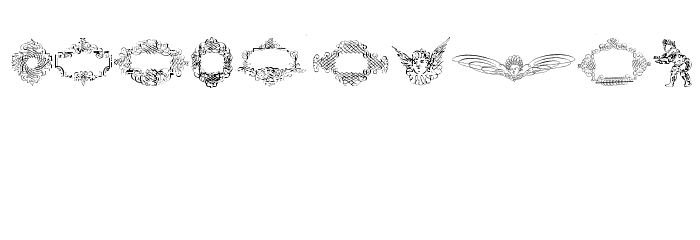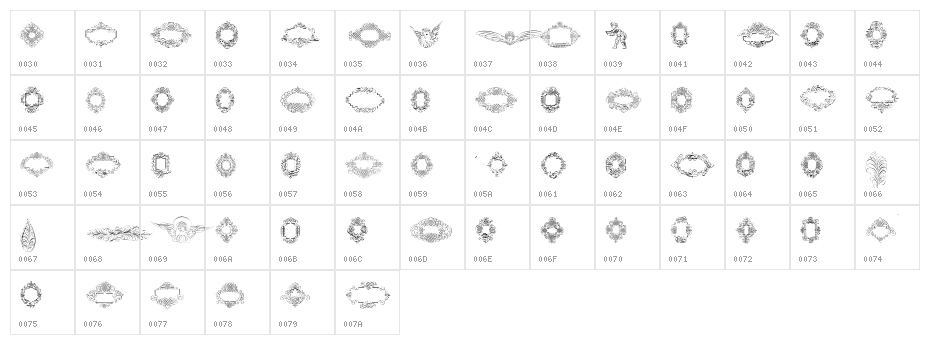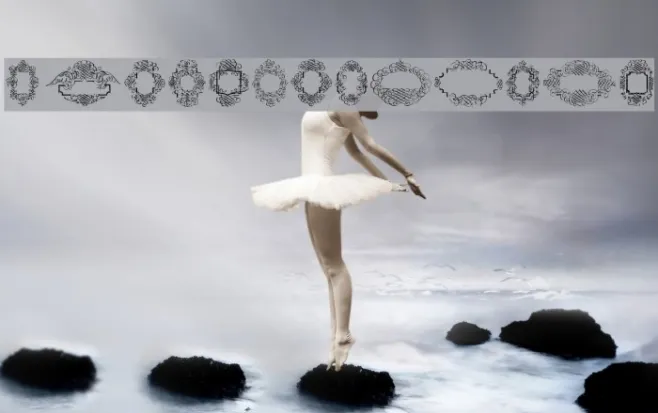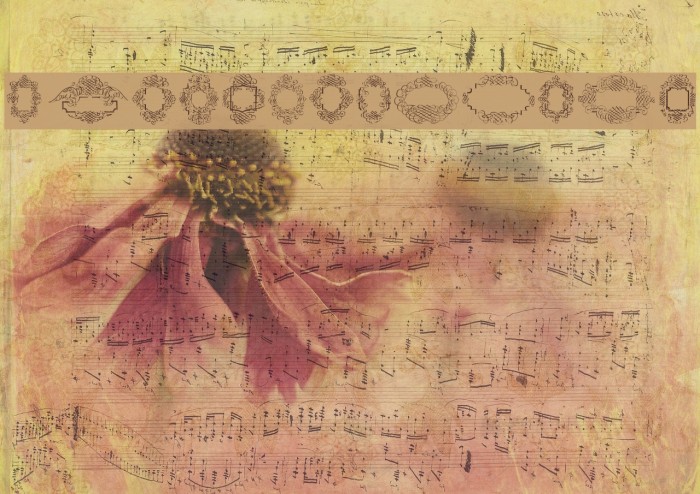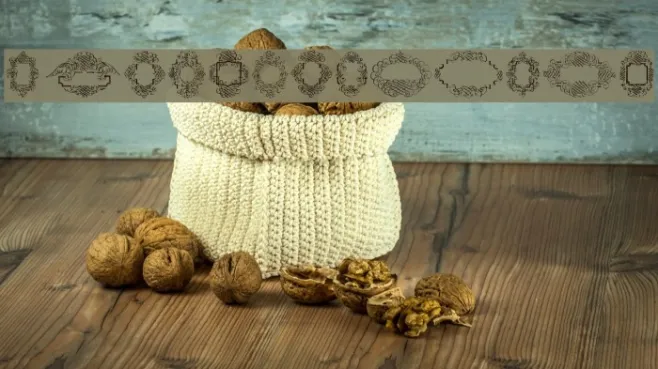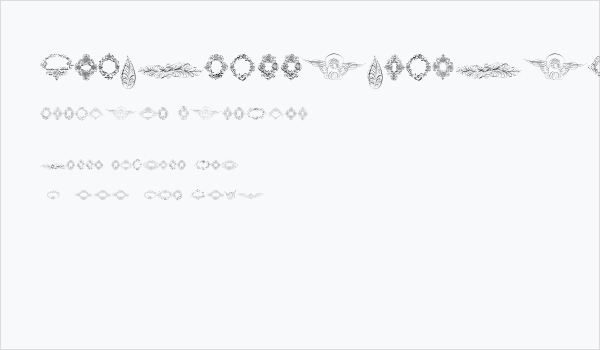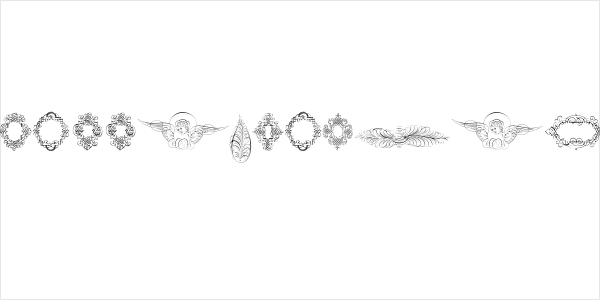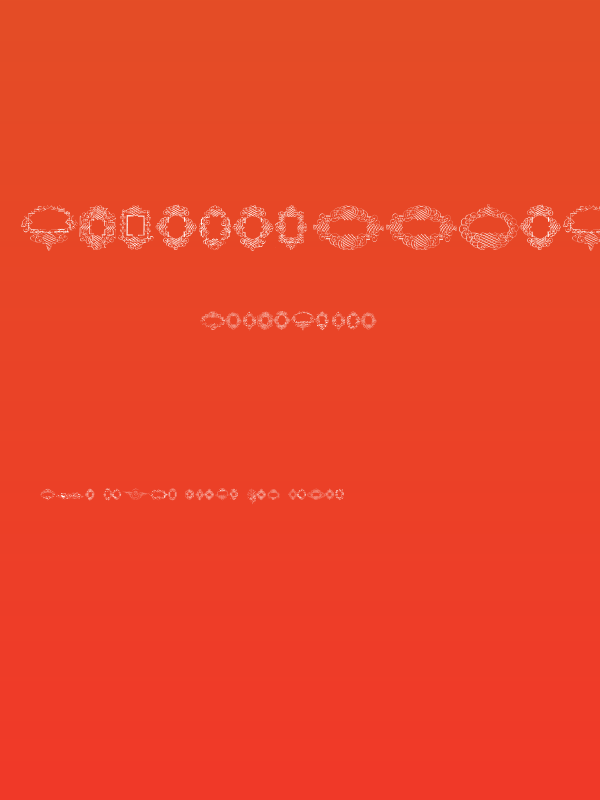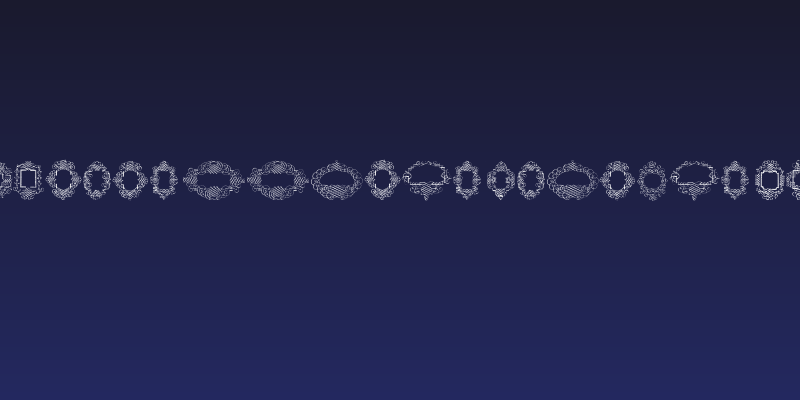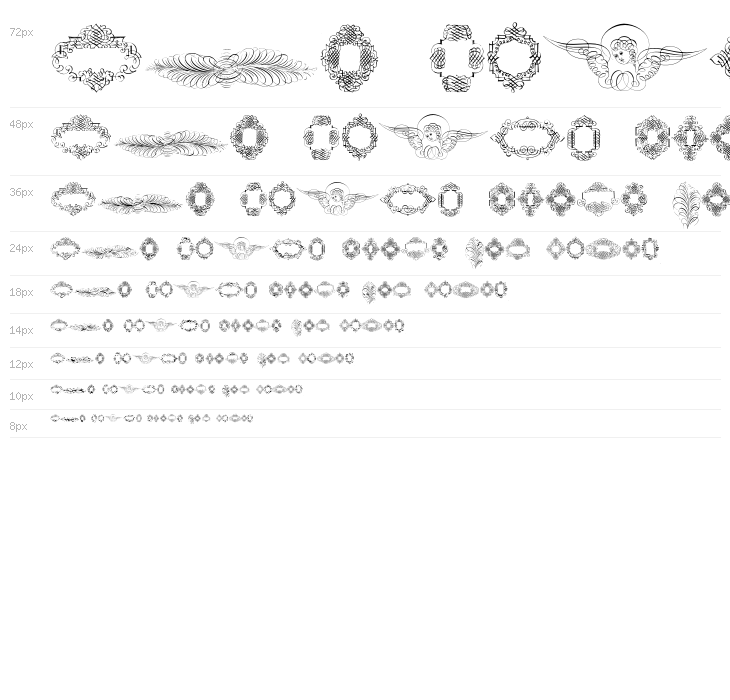
RoughCalligraphicFrames Font
RoughCalligraphicFrames Description
A collection of ornate, hand-drawn calligraphic frames and decorative elements, featuring intricate flourishes, scrolls, and vintage motifs. Each frame is unique, with varying shapes and embellishments, evoking a classical and artistic feel.
| Overall Style | Vintage, Decorative, Artistic |
| Use Case | Frames, Borders, Decorative accents |
| Proposed Projects | Wedding invitations, certificates, greeting cards, vintage branding, decorative labels, scrapbooking, event programs. |